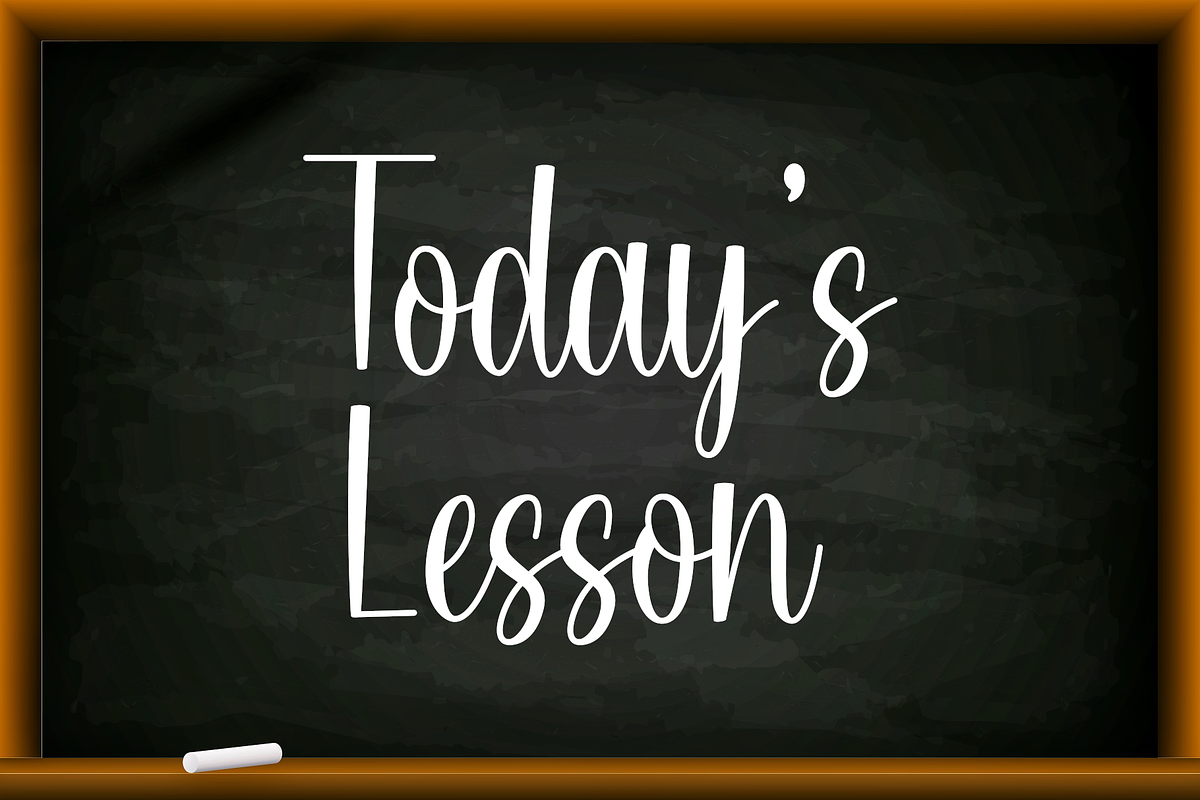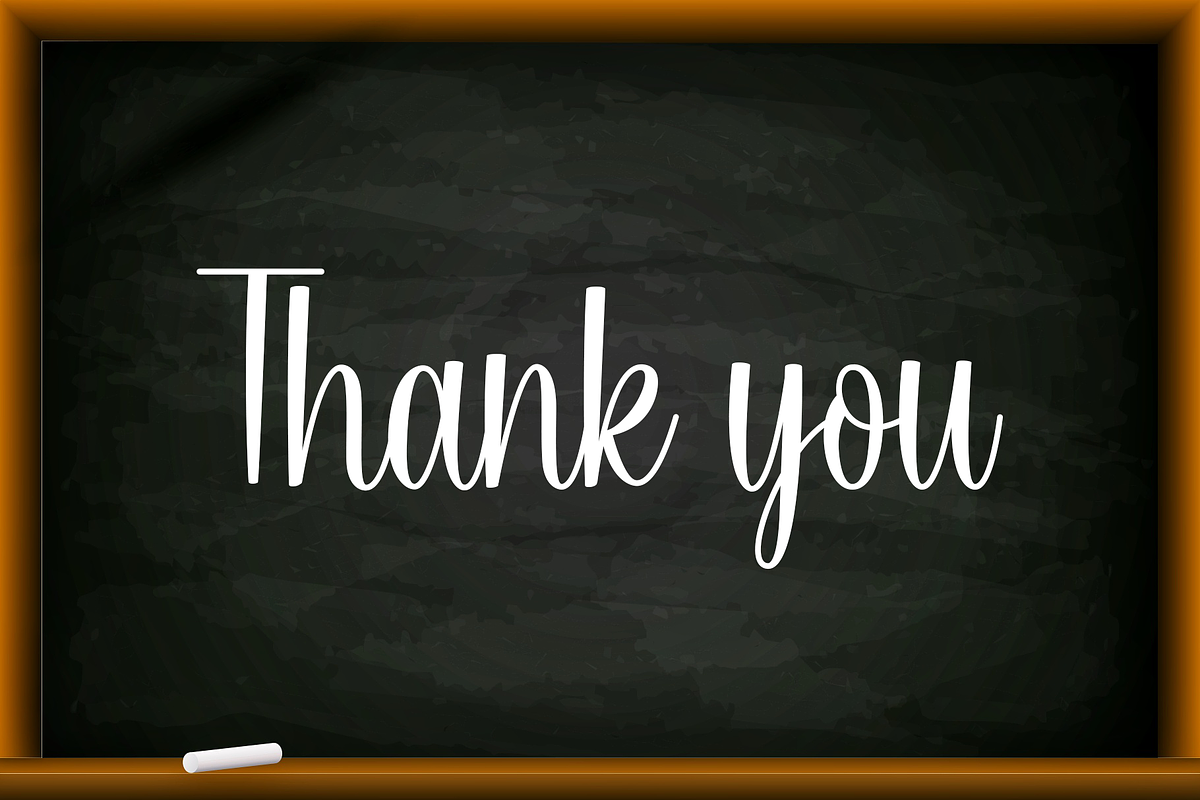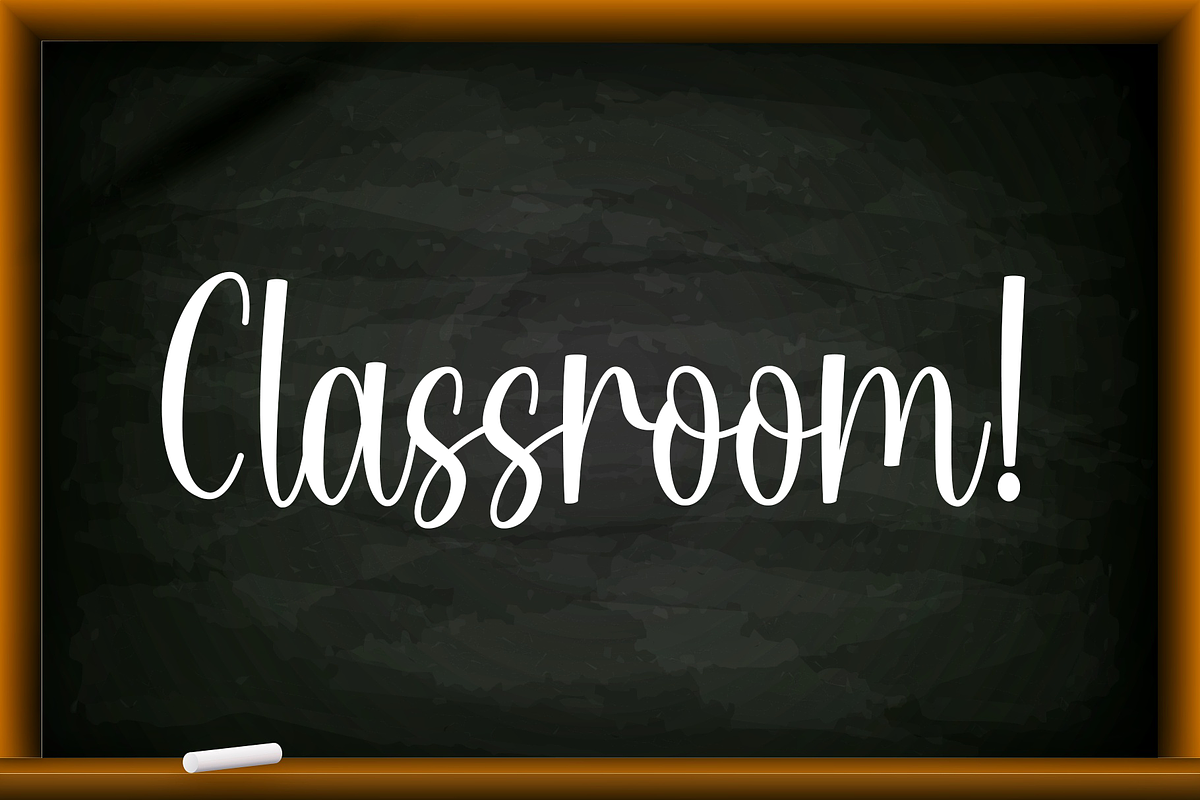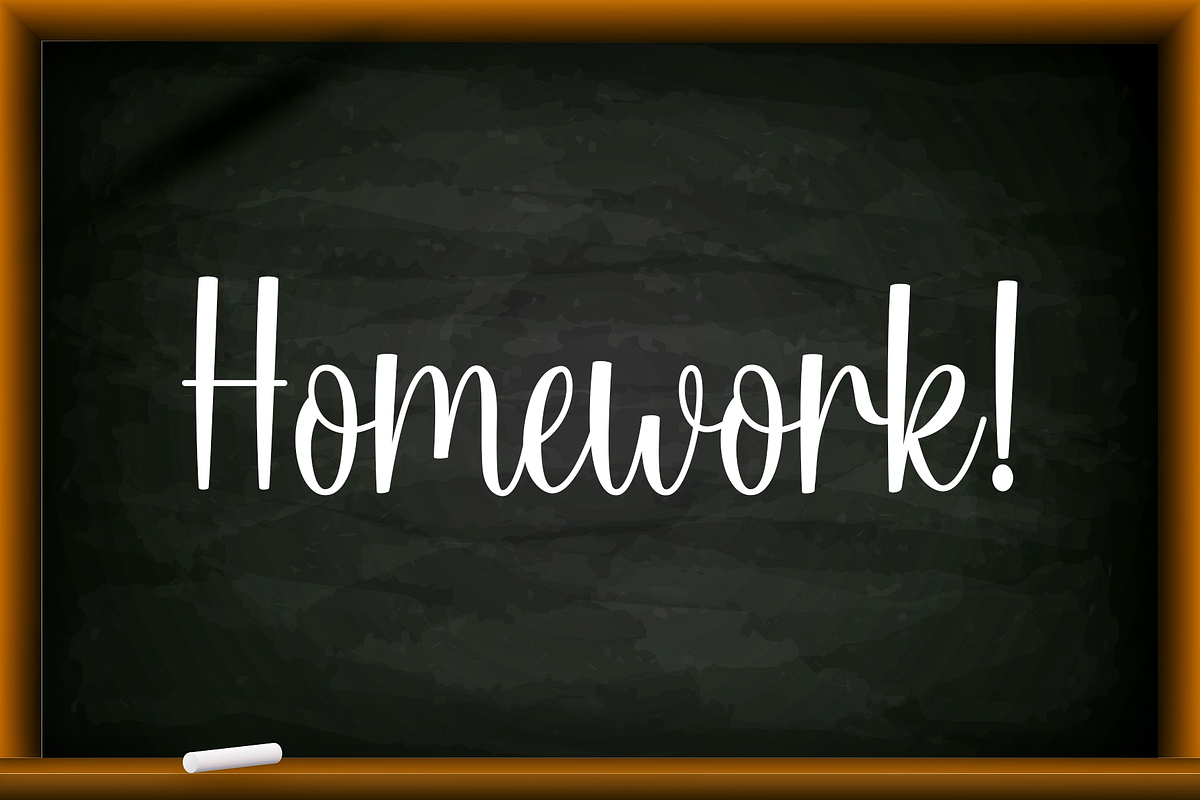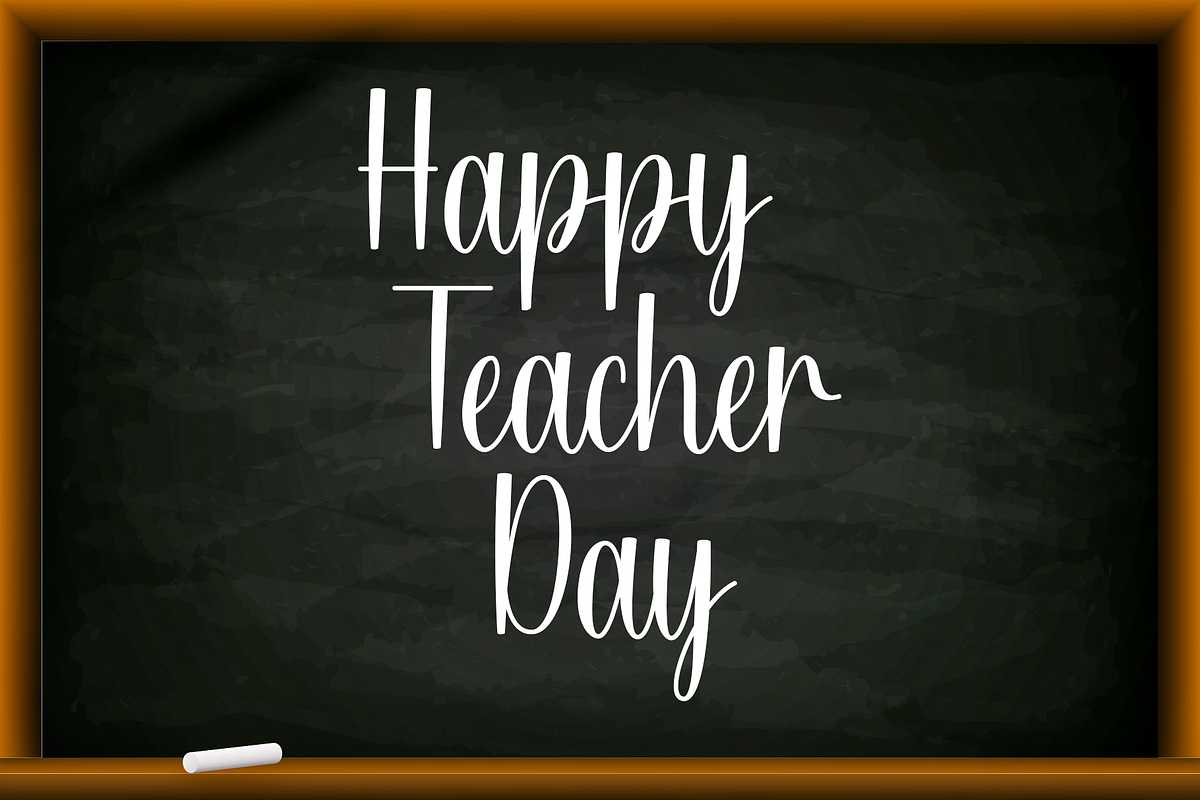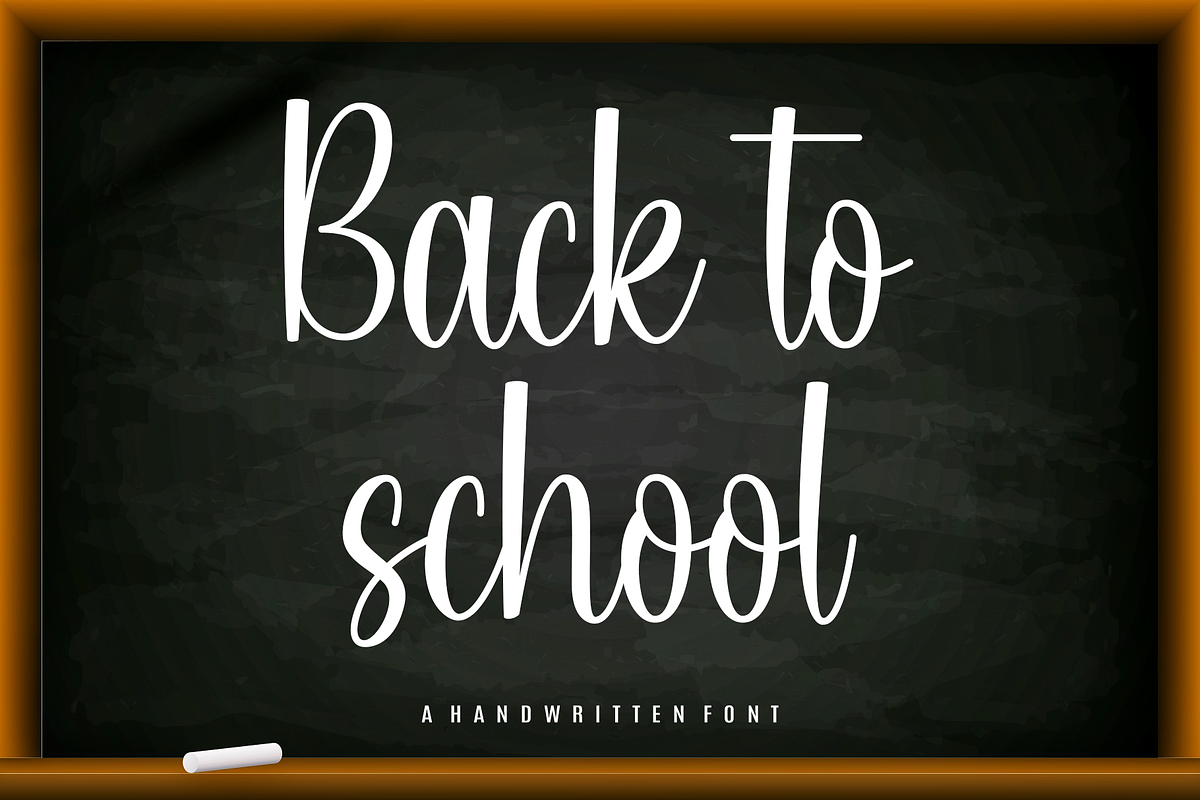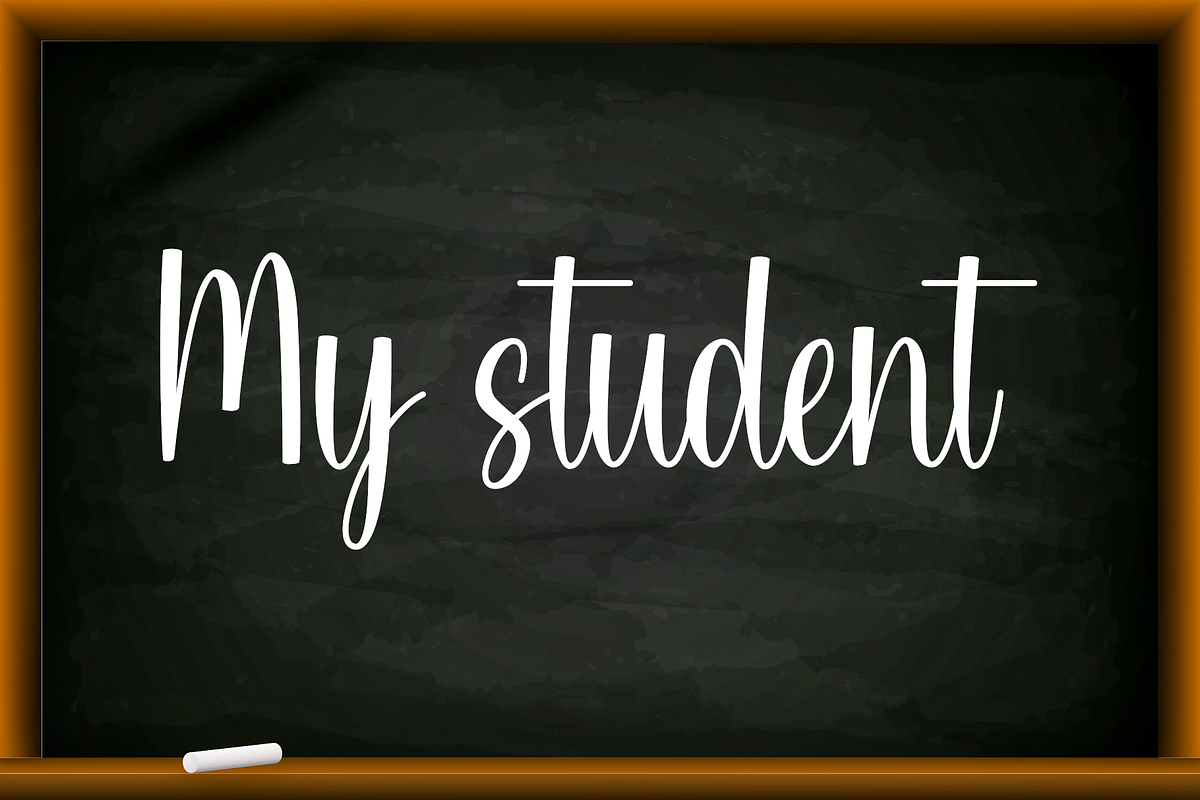
Back To School
Inject a touch of nostalgia into your designs with "Back To School," a handwritten font that seamlessly captures the charm of school days and the timeless allure of chalk-filled blackboards. This unique typography melds creativity and tradition, lending each project a feel of personalized craftsmanship. Let the "Back To School" font transport you back to the vibrant classrooms, whispering with the echoes of laughter, learning, and the innocent scribbles on the blackboard!